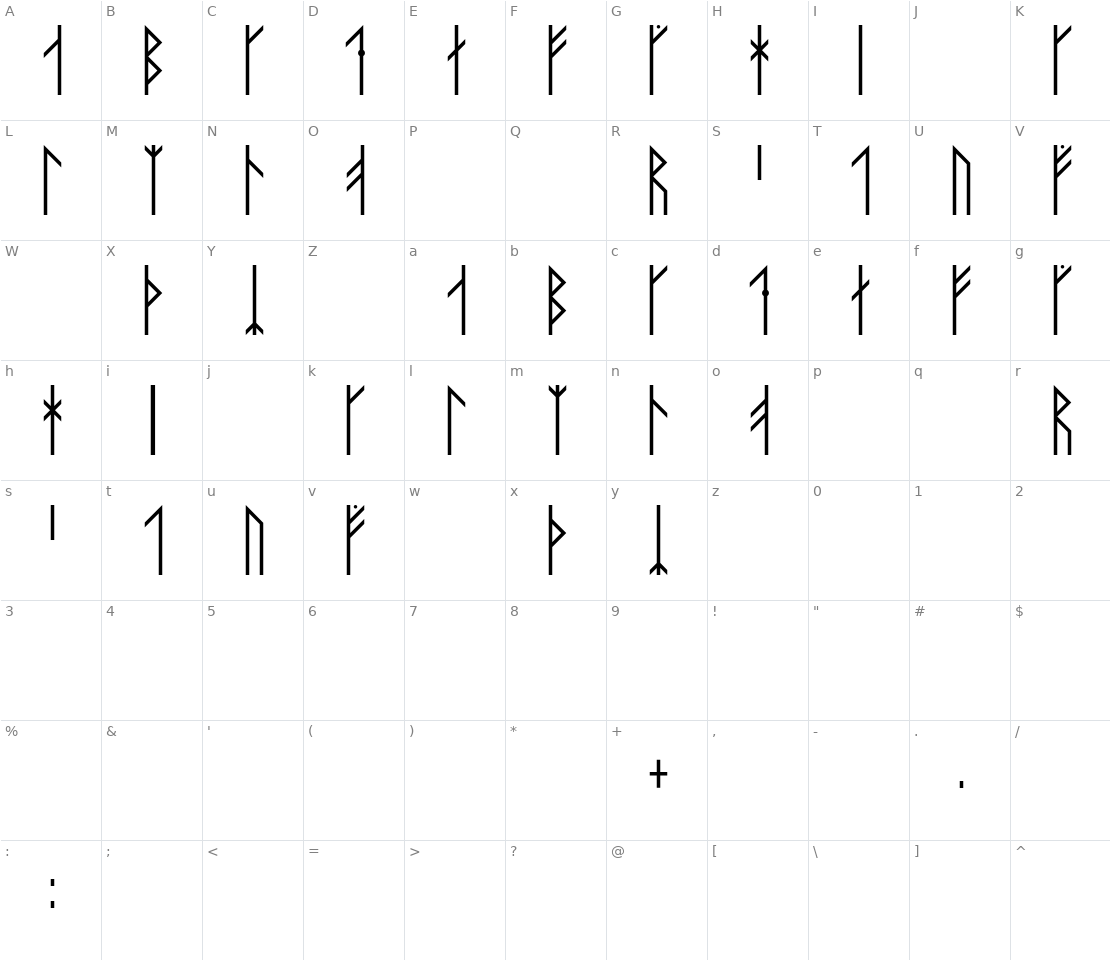
Orkahaug
Orkahaug is a runic-inspired decorative face by Féarag that draws directly from Norse and Viking letterform traditions, with angular strokes and a rough, carved quality that feels genuinely ancient. The characters carry a mystical, medieval weight that makes them a natural pick for fantasy book covers, game titles, or historical-themed design work. Strictly a display font, best kept to headlines and short text where the ornamental detail can read clearly.